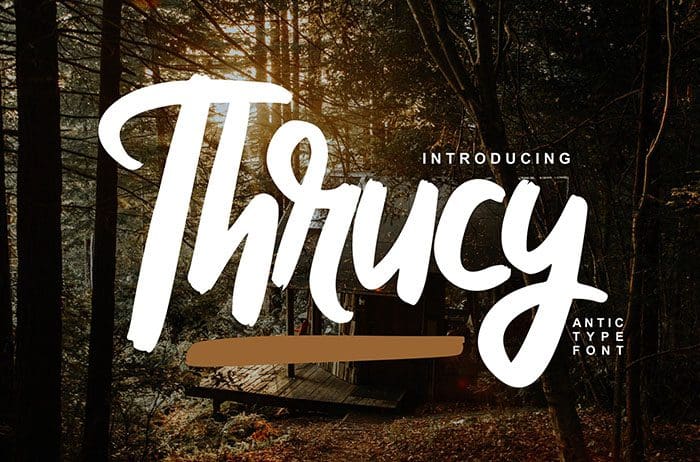
Thrucy Antictype Script Font
Thrucy is a antictype script font carefully created with a touch of elegance. It features an incredibly classic style, while still keeping a friendly feel. Thanks to Vunira Studio for sharing this font! Take a look at this portfolio for more of his stunning fonts.